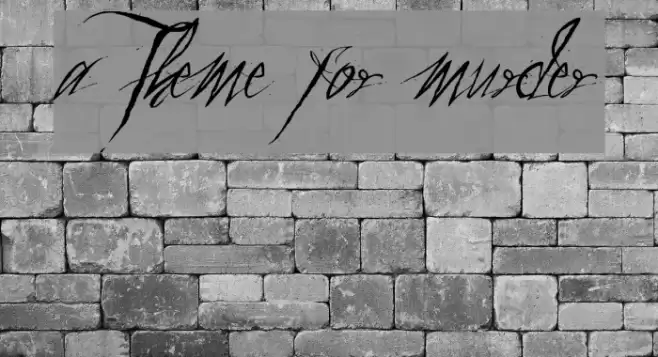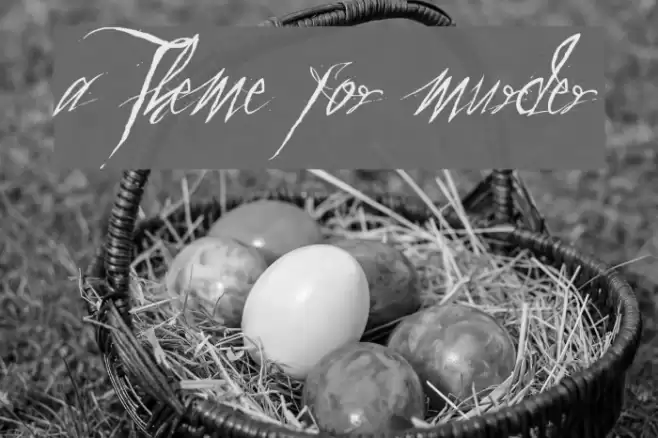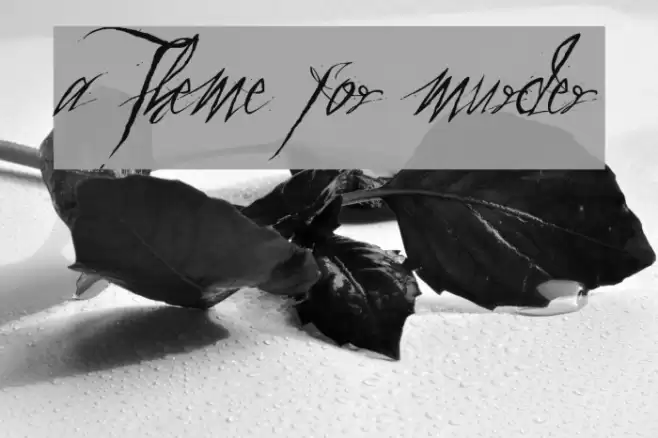
a Theme for murder Font
a Theme for murder Description
This font exhibits a dramatic and expressive style, characterized by sharp, elongated strokes and a dynamic flow. The letters are intricately designed with a sense of movement, giving them an almost calligraphic appearance. The uppercase letters are bold and commanding, while the lowercase letters maintain a consistent fluidity. The overall design is reminiscent of gothic or horror themes, with a touch of elegance and sophistication. The font's unique style makes it stand out, perfect for projects that require a strong visual impact.
A dramatic, expressive font with sharp, elongated strokes and a dynamic flow from 3D fonts.
- Proposed Projects: Ideal for horror-themed posters, book covers, album art, and branding that requires a bold, gothic aesthetic.
- Character Spacing: Tight
- Overall Style: Gothic, Decorative